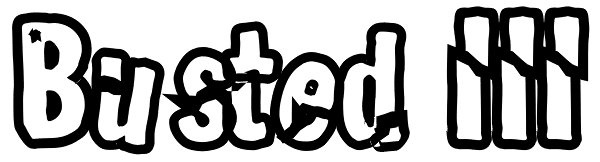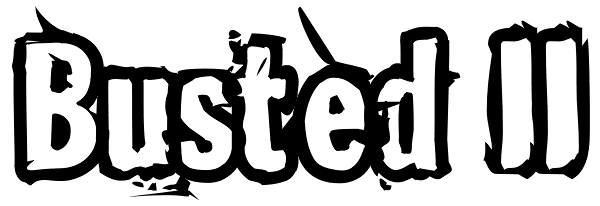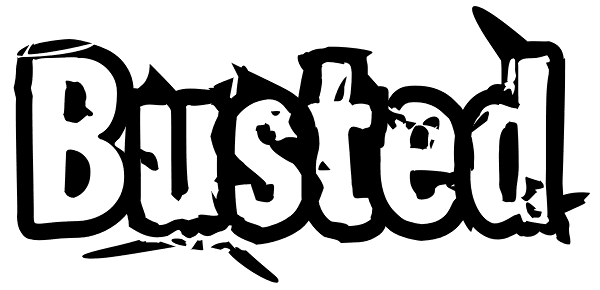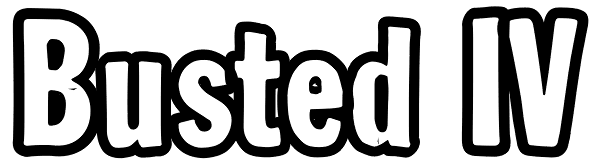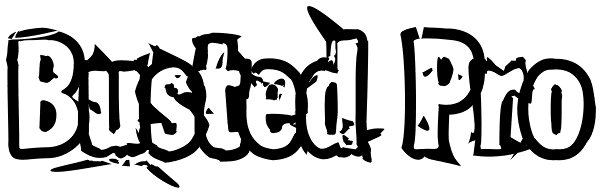
Busted
Busted is the very strange and out-of-character outburst of Bill Troop, a guy who was classically trained in everything, from classical piano and literature to classical photography and type design. As far as we could tell, Bill Troop is the kind of...
Busted III
Busted II
Busted
Busted IV
Busted Pro